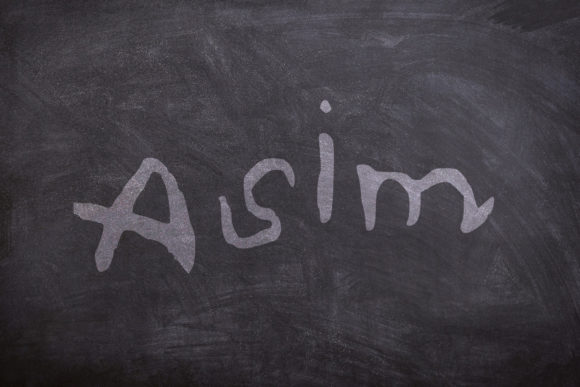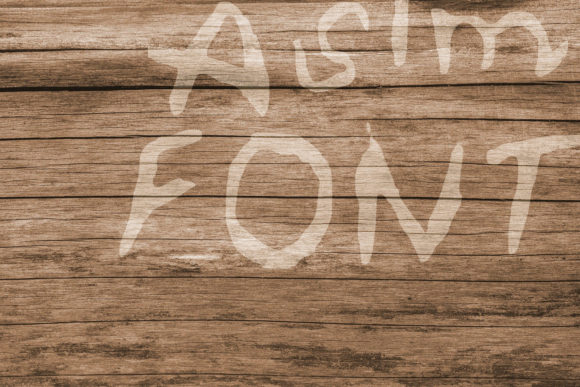
Asim Font
About Asim Font
Asim is a stylish and contemporary handwritten font that brings a touch of coolness and chic to your design projects. With its unique and versatile characteristics, this font is a valuable addition to your font collection, capable of enhancing a wide range of creative endeavors.
The font’s sleek and modern design exudes a sense of sophistication and elegance. Its clean lines and balanced proportions contribute to a polished and professional appearance that appeals to a variety of audiences. Whether you’re creating branding materials, logos, social media posts, or any other design element, Asim’s cool and chic vibe adds a touch of allure and refinement.
One of the standout features of Asim is its versatility. No matter the topic or theme of your project, this font seamlessly adapts to various contexts and styles. Whether you’re working on a minimalist and contemporary design or a bold and edgy composition, Asim effortlessly elevates the overall look and feel of your creations.
Asim’s chic handwritten style gives your designs a personalized and handcrafted touch. It adds a sense of authenticity and originality, making your work stand out in a crowded visual landscape. The font’s unique characteristics ensure that each piece you create becomes a true masterpiece, capturing the attention and admiration of your audience.
With Asim in your fonts’ library, you have a powerful tool at your disposal to enhance any creation. Its potential to elevate your designs is unmatched, making it a go-to choice for a wide range of projects. From digital designs to print materials, Asim’s cool and chic aesthetic infuses your work with a modern and trendy edge.
In conclusion, Asim is not just a font – it’s an invaluable asset that adds a cool and chic flair to your design projects. Its versatility, elegance, and unique characteristics make it a must-have for any designer looking to create eye-catching and sophisticated compositions. Whether you’re designing for business, personal, or creative purposes, Asim has the potential to take your creations to the next level and leave a lasting impression on your audience.